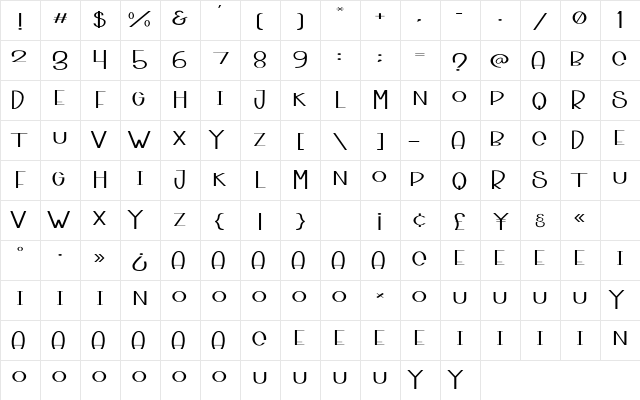
Brokefold Fun Wide
Design Context for Brokefold Fun Typeface
Brokefold Fun has an approachable, lighthearted character — its loose, expressive forms are well-suited to children's content, casual branding, and fun-first design.
Font Pairing: Pairs well with a rounded or humanist sans for body copy, maintaining the friendly tone without relying on Brokefold Fun to carry extended reading.
Pro Tip: Avoid using Brokefold Fun for long passages of text — it works best for headlines, labels, and short calls to action.